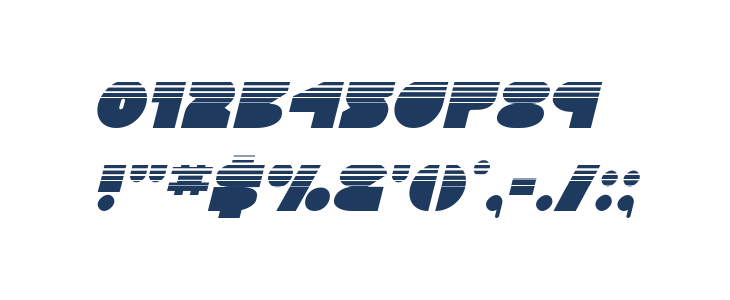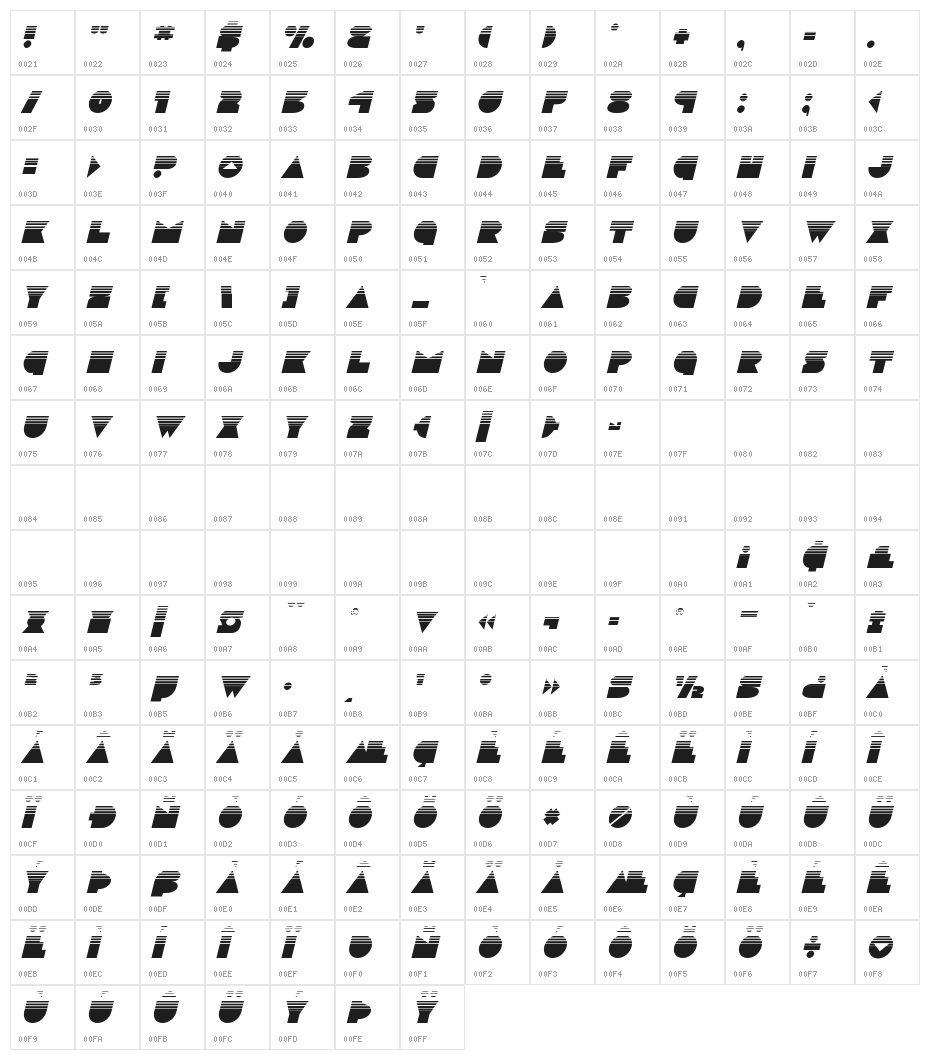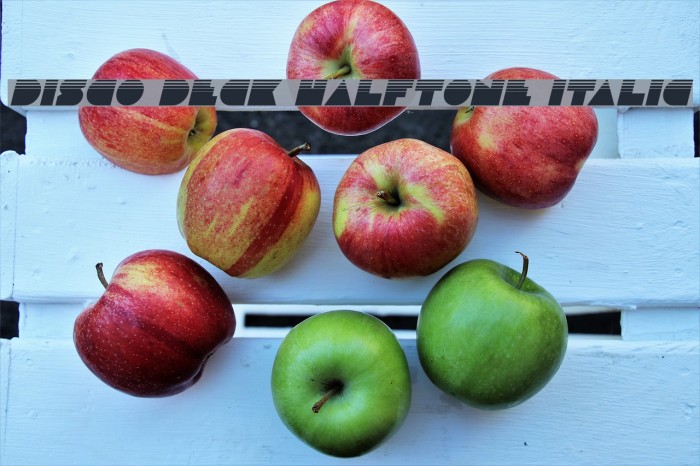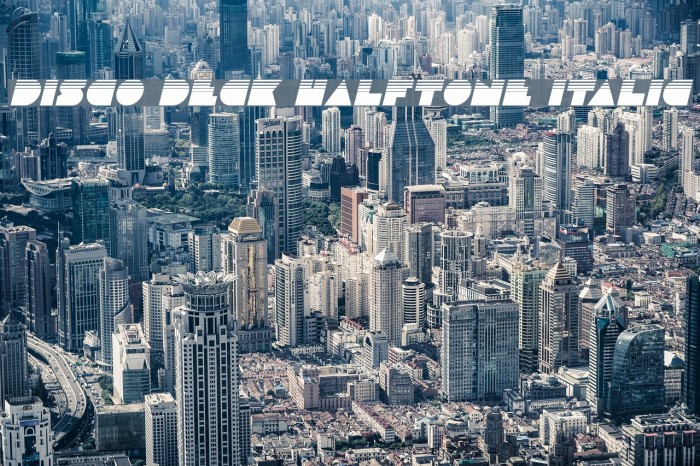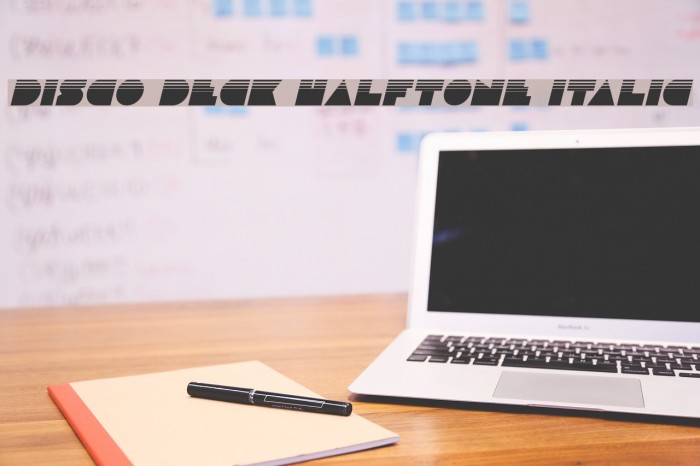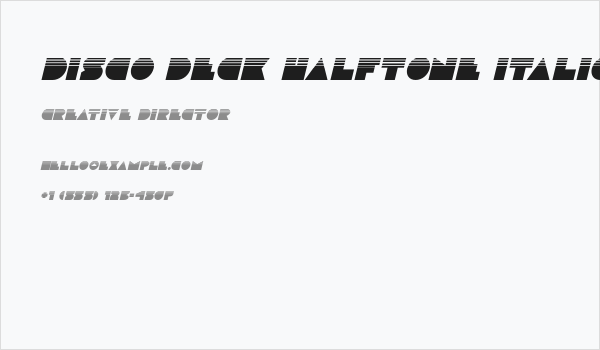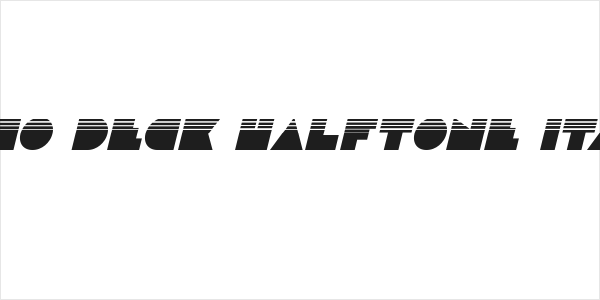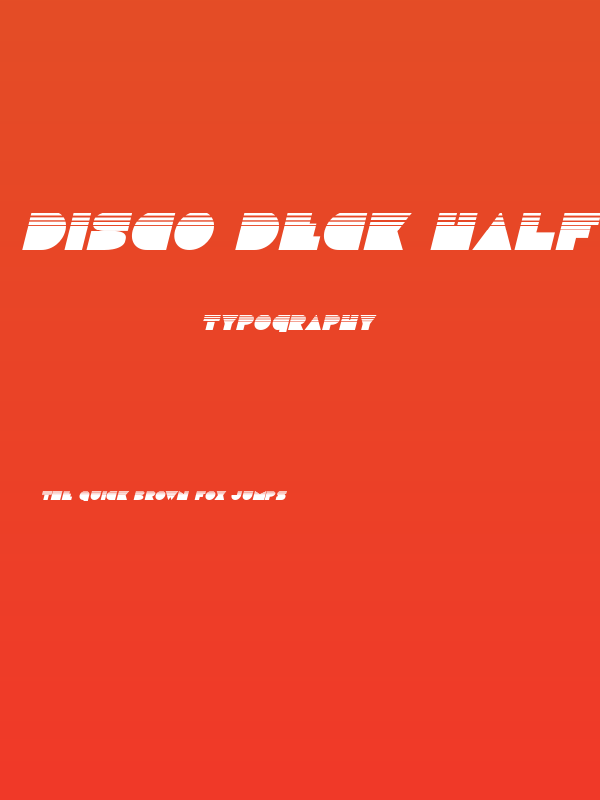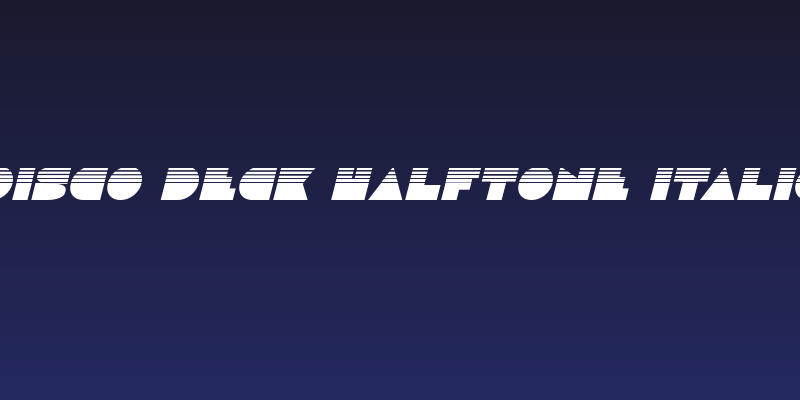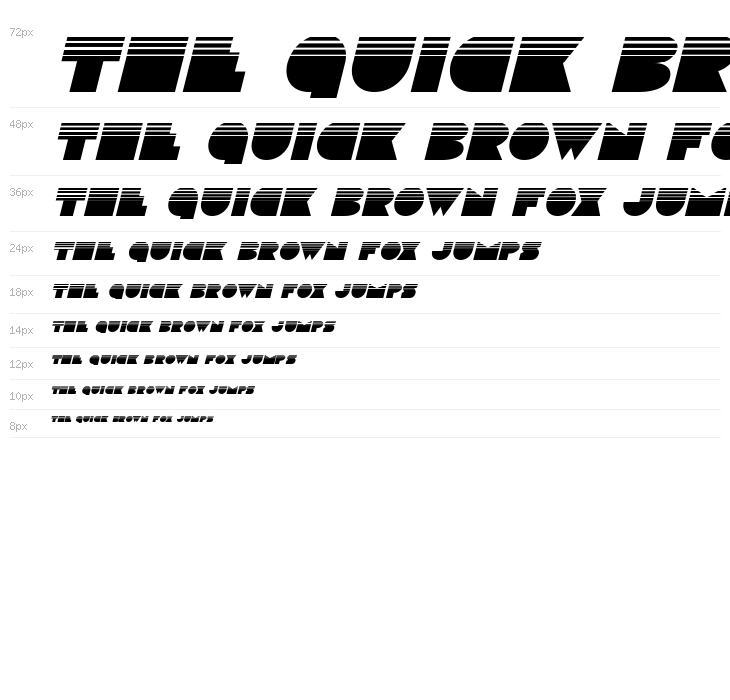
Disco Deck Halftone Italic Font
Disco Deck Halftone Italic Description
This font features a bold, dynamic style with a distinct halftone effect that gives it a retro, disco-inspired appearance. The letters are italicized, adding a sense of motion and energy. The uppercase and lowercase letters maintain a consistent design, characterized by thick, geometric shapes and horizontal lines that create a layered, textured look. The numbers and special characters follow the same design principles, ensuring a cohesive visual identity. This font is ideal for projects that require a bold, eye-catching display with a vintage twist.
| Proposed Projects | Perfect for retro-themed posters, album covers, event flyers, and branding that seeks a vintage, energetic vibe. |